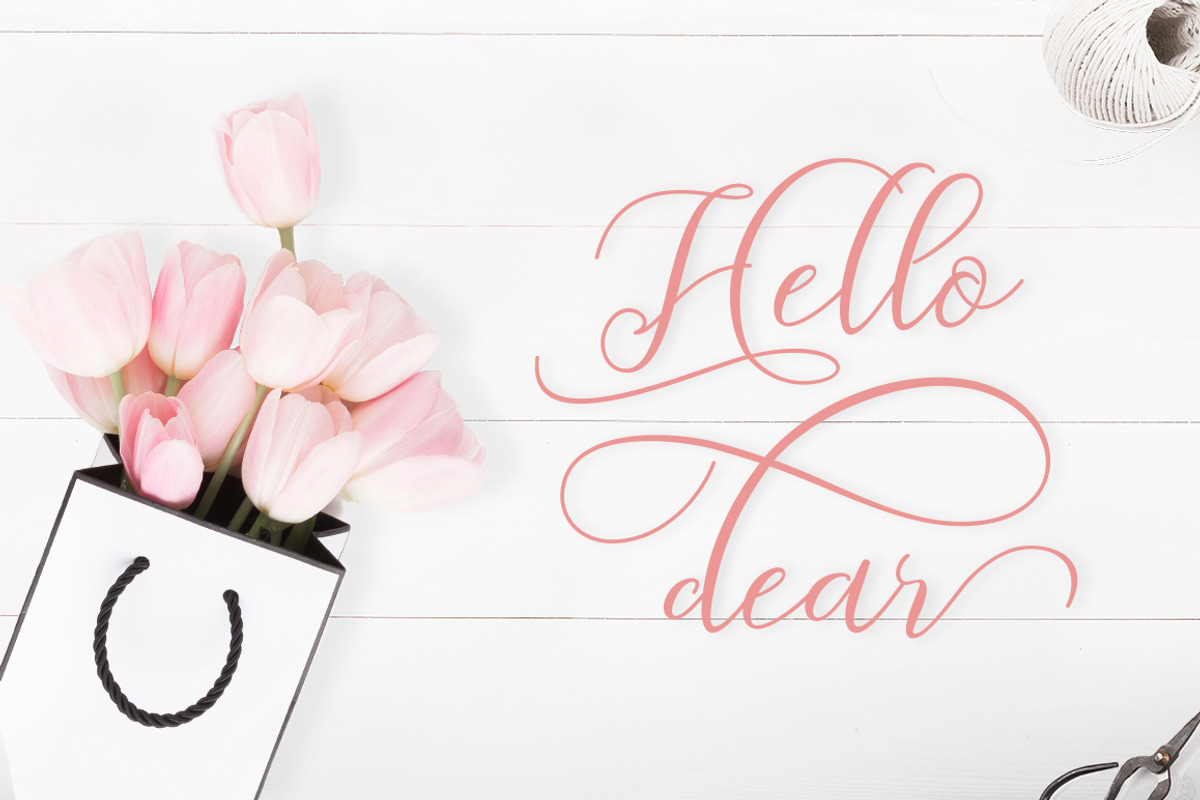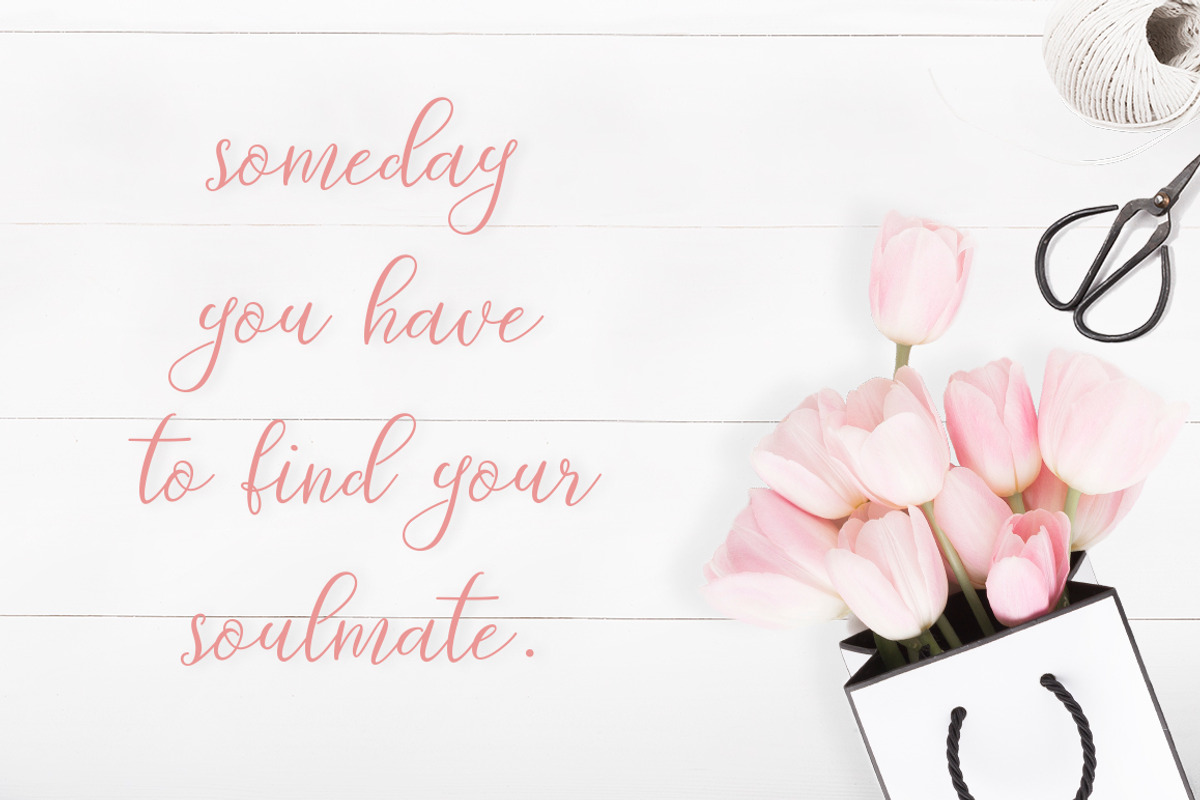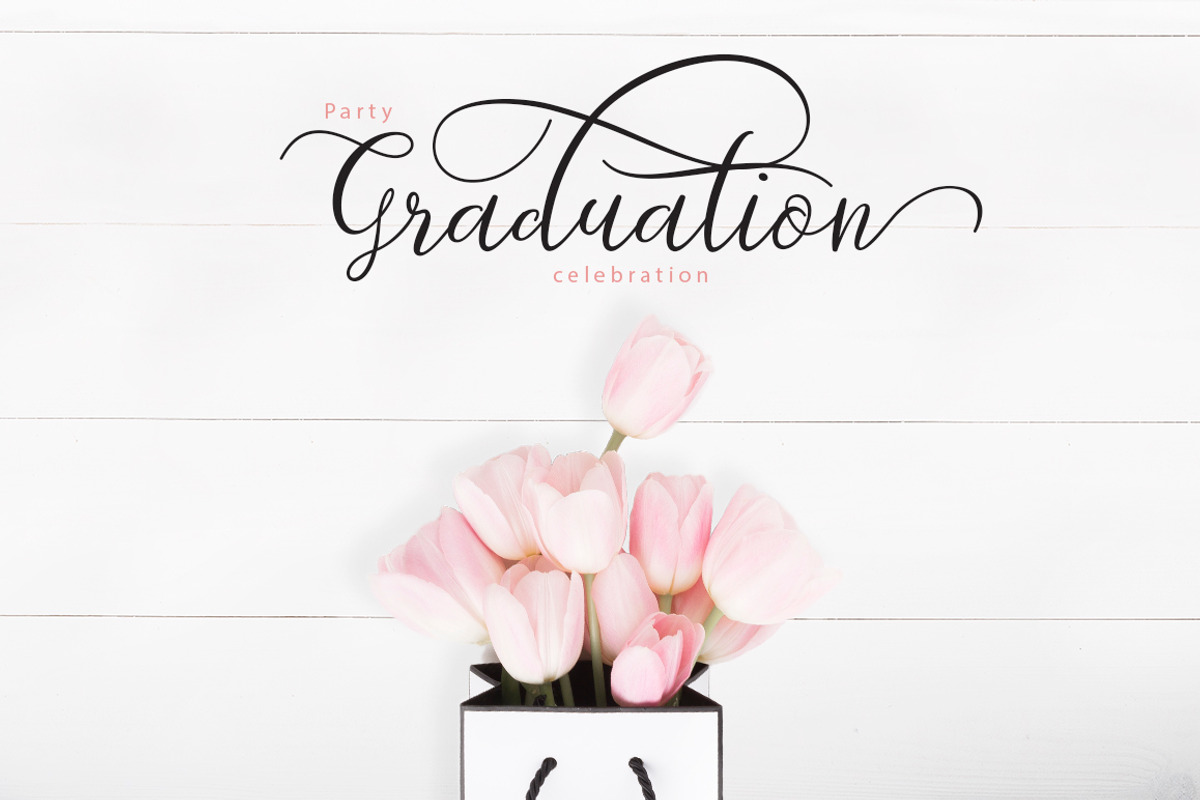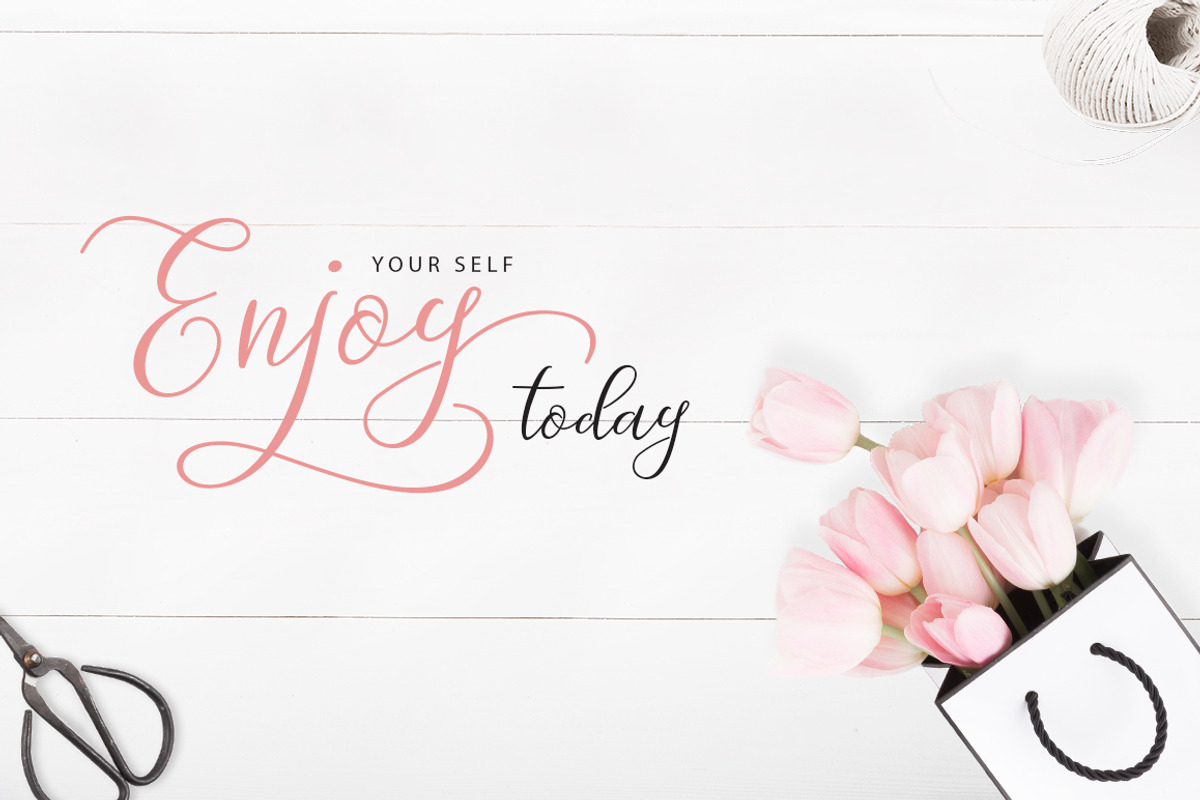
Prologue Script
Prologue Script by Font Bundles is a font selected for branding, posters, packaging, typography.
- Prologue Script features 519+ glyphs with 207 alternate characters.
- The font includes initial and terminal letters, alternates, ligatures and multiple language support.
Why Prologue Script is worth a look
Prologue Script by Font Bundles fits naturally into Branding, posters, packaging, typography.